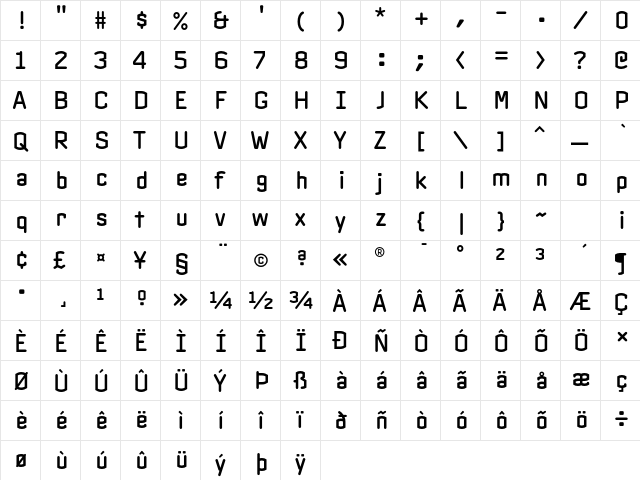
Clicker Regular
Design Context for Clicker Typeface
Clicker offers clean, dependable letterforms without strong stylistic allegiance, making it a practical choice for designers who need flexibility.
Pro Tip: Use Clicker in both headline and body roles to test its range before committing to a single application.